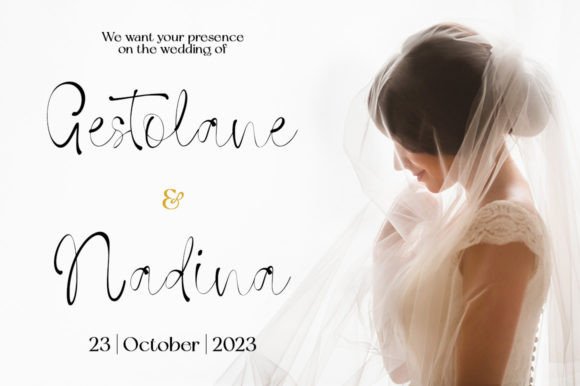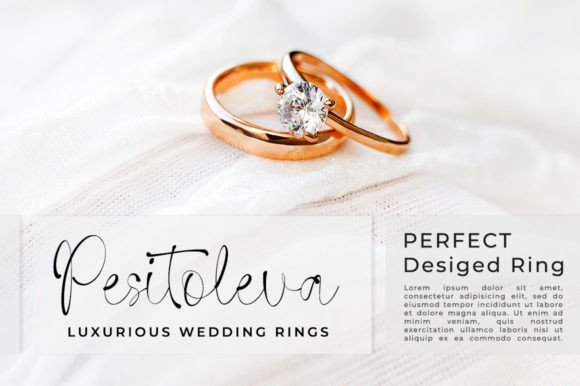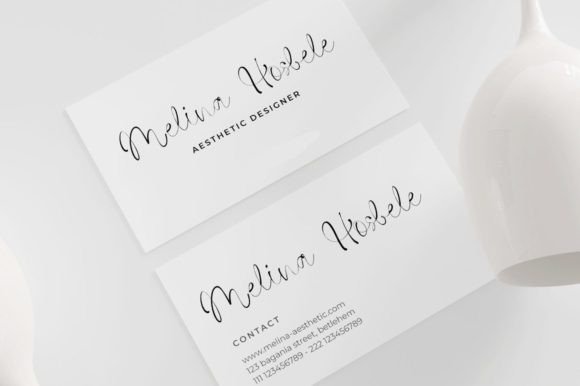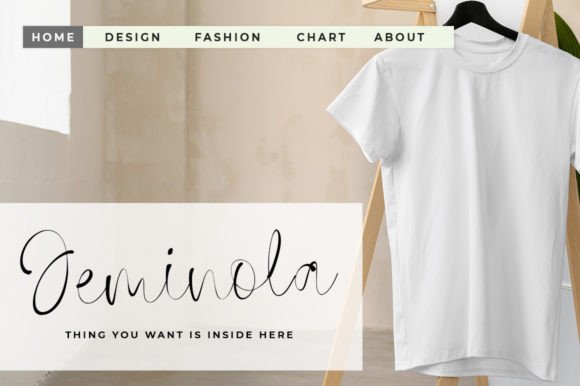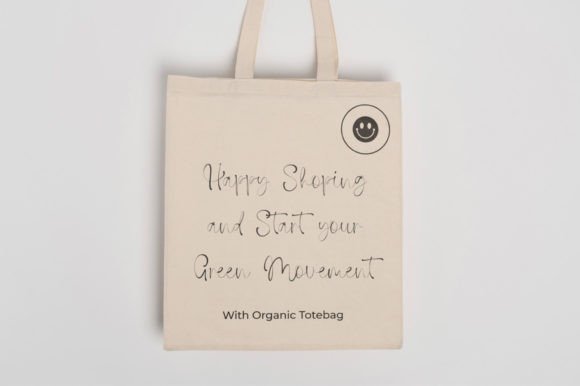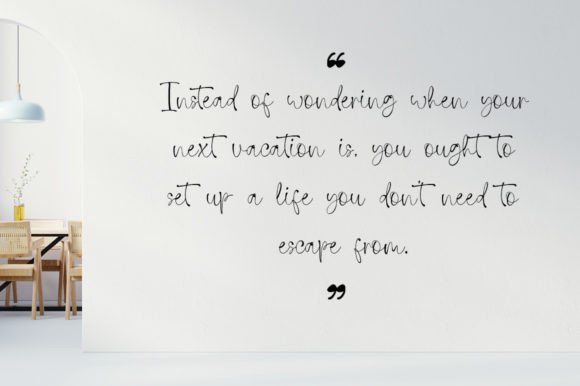
Discover the Elegance of Calentrophe Font: Elevate Your Designs with Precision and Style
In the vast universe of typography, certain fonts stand out for their unique ability to transform and elevate design projects. Among these, the Calentrophe Font shines as a dazzling script font that promises to bring a touch of sophistication and elegance to any creative endeavor. Neatly crafted and highly detailed, Calentrophe is not just a font; it’s an asset that can significantly enhance the aesthetic appeal of your projects.
The Essence of Calentrophe Font
Calentrophe is a meticulously designed script font that embodies the perfect blend of style and versatility. Its creation is a testament to the power of typography in design, offering a wide range of possibilities for creative expression. Whether you’re working on a branding project, crafting an invitation, or designing a website, Calentrophe provides the tools to make your work stand out.
Why Choose Calentrophe Font?
There are several reasons why Calentrophe should be a part of your font library:
- Versatility: Regardless of the topic or theme of your project, Calentrophe seamlessly adapts, ensuring your designs always look their best.
- Elegance: Its script style adds a touch of elegance and sophistication, making it perfect for projects that require a refined look.
- Readability: Despite its decorative nature, Calentrophe maintains high readability, making it suitable for both headings and body text.
- Customization: The font’s detailed craftsmanship allows for a range of creative manipulations, enabling designers to tailor it to their project’s specific needs.
Applications of Calentrophe Font
The applications of Calentrophe are vast and varied. Here are a few examples of how this versatile font can be used:
- Branding and Logotypes: Use Calentrophe to create a memorable brand identity that exudes elegance and sophistication.
- Stationery and Invitations: Add a touch of class to your wedding invitations, business cards, and letterheads with this beautiful script font.
- Web Design: Enhance your website’s aesthetic appeal with Calentrophe, used in headings, titles, or even as a part of your website’s logo.
- Packaging: Make your product packaging stand out on store shelves with the distinctive and attractive look offered by Calentrophe.
Tips for Using Calentrophe Font Effectively
To maximize the potential of Calentrophe, consider the following tips:
- Pair it Wisely: Combine Calentrophe with simpler fonts to create a balanced and harmonious design.
- Play with Sizes: Experiment with different font sizes to emphasize certain parts of your text and create visual hierarchy.
- Adjust Letter Spacing: Fine-tune the letter spacing to ensure optimal readability and aesthetic appeal.
Calentrophe Font is more than just a script font; it’s a tool for designers and crafters to elevate their projects and bring their creative visions to life. Its elegance, versatility, and precision make it an invaluable addition to any font library. Whether you’re a professional designer or a DIY enthusiast, Calentrophe offers the potential to transform your designs and make them truly unforgettable.